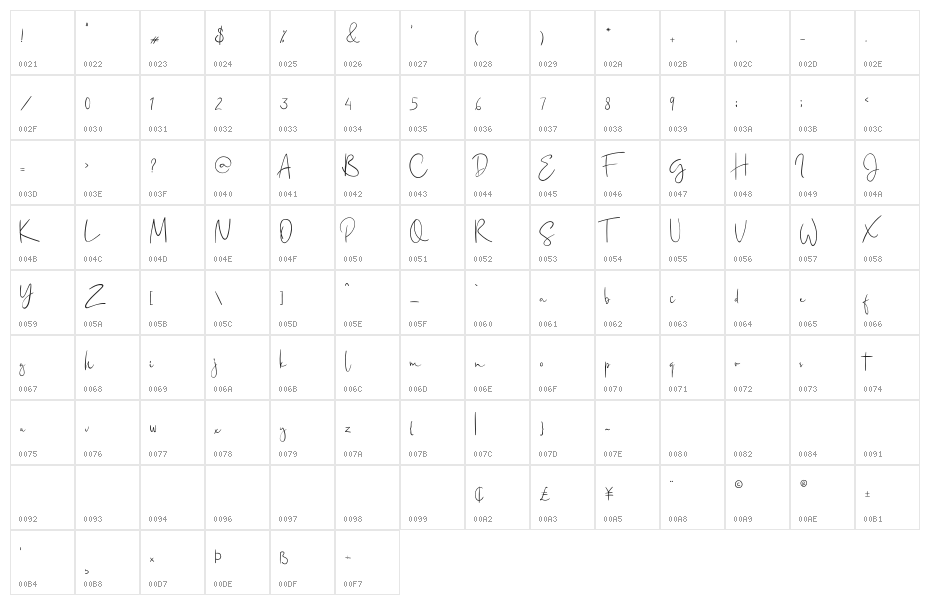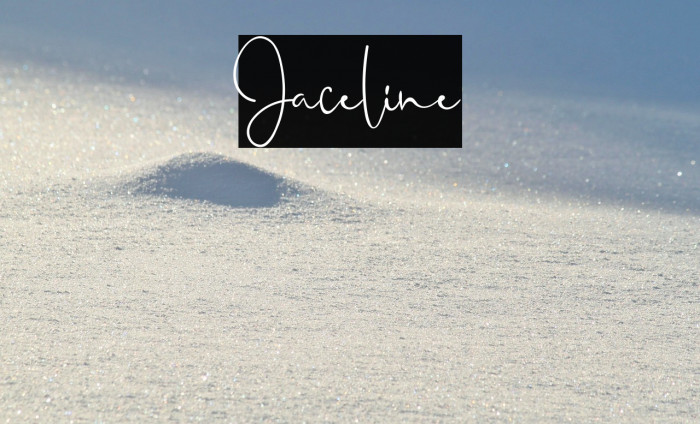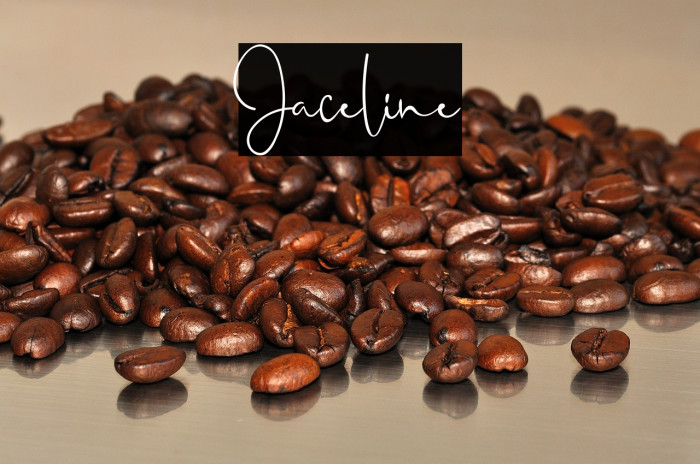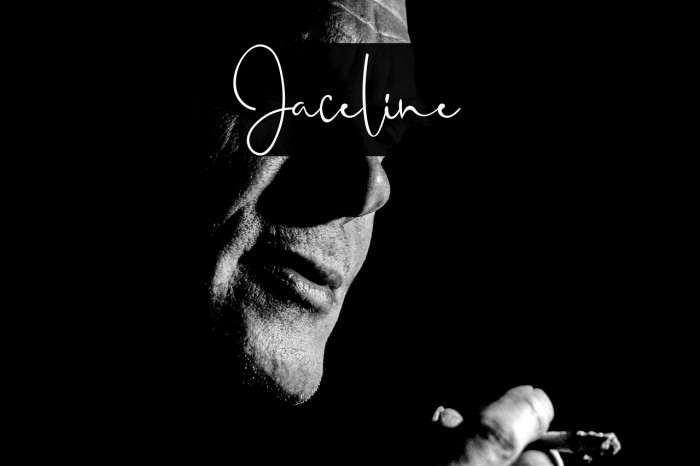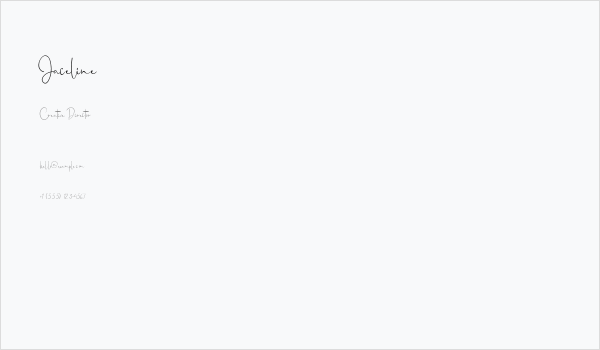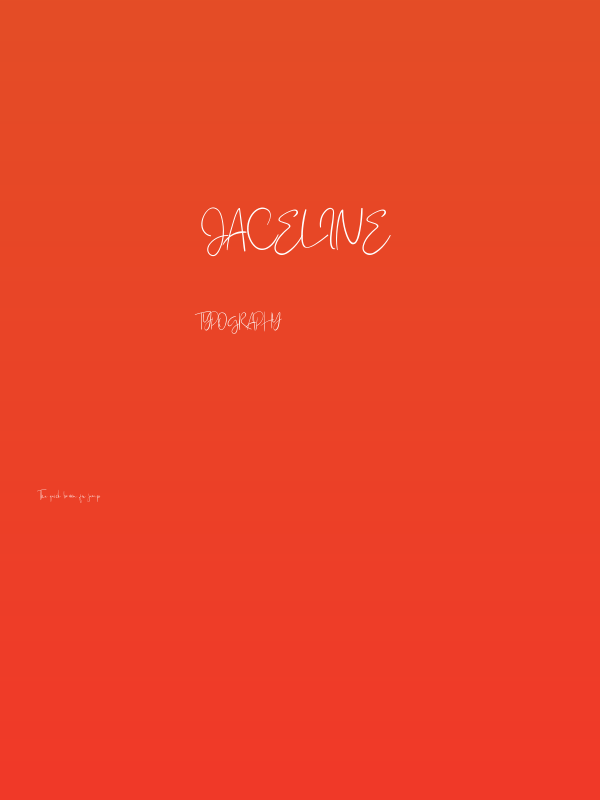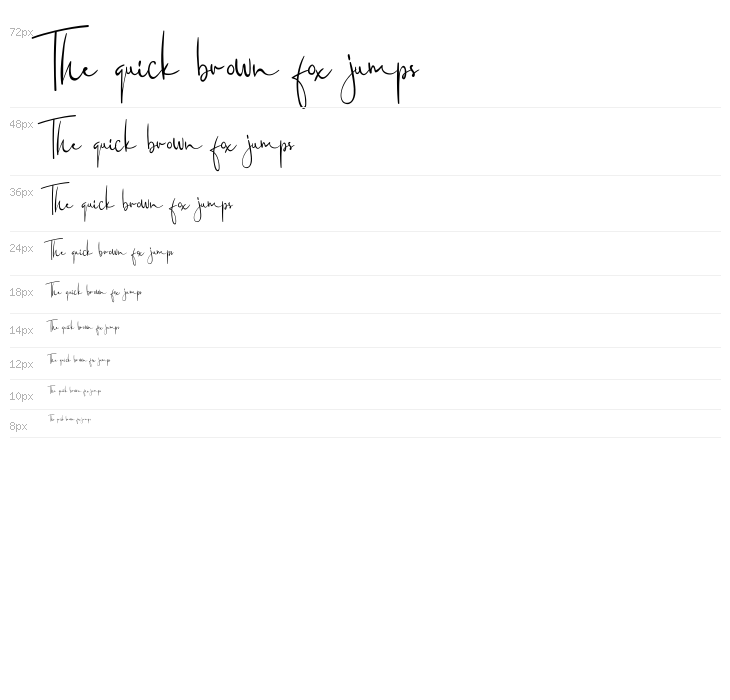
Jaceline Font
Jaceline Description
This font features a playful and whimsical handwritten style, characterized by its flowing and interconnected letterforms. The uppercase letters exhibit a bold and expressive quality, with varying stroke widths that add a dynamic feel. The lowercase letters maintain a consistent fluidity, enhancing the casual and approachable nature of the font. Numbers and special characters are designed to match the overall aesthetic, ensuring a cohesive look across all text elements. The font's unique style makes it suitable for creative and informal projects, where a personal touch is desired.
Use CaseLogos, Headlines, Creative projects
Proposed ProjectsIdeal for greeting cards, invitations, personal branding, and creative projects.